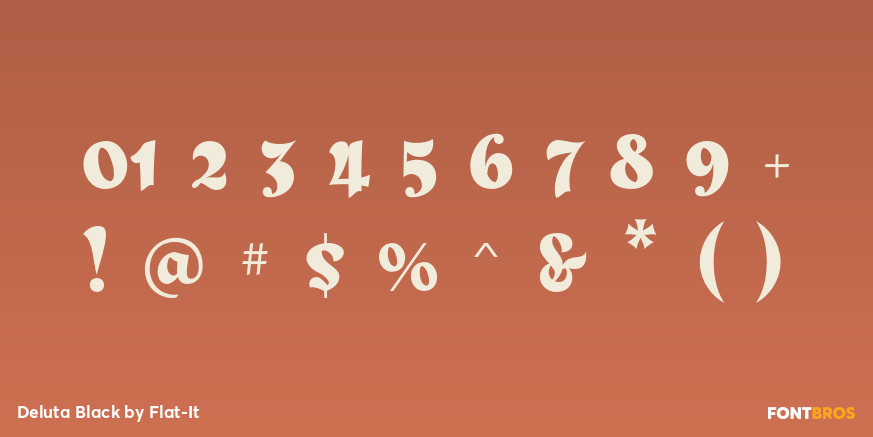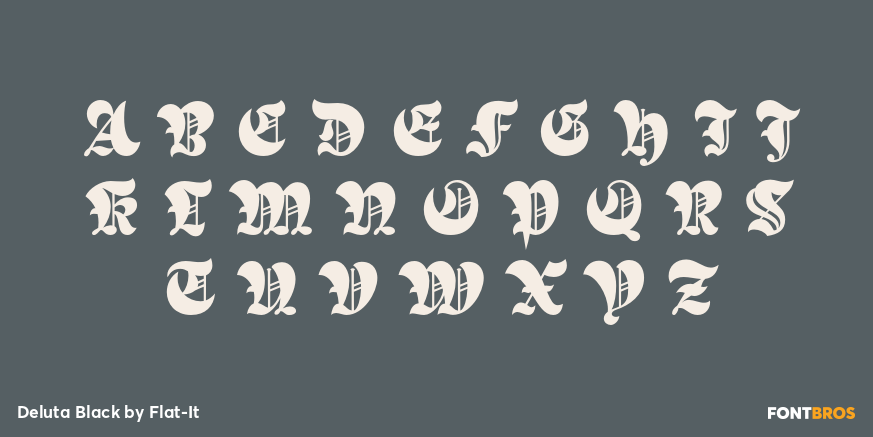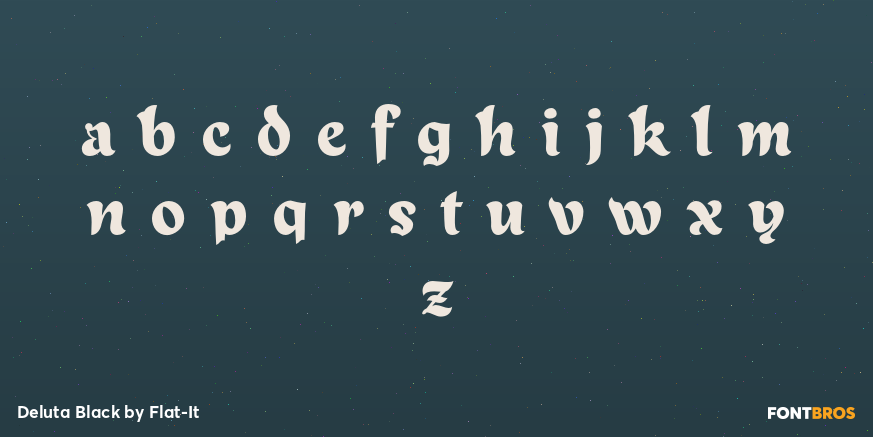
Deluta Black
Font Family by Dharma Type
You won’t find another blackletter font quite as lovely, unique, and playful as this one.
It’s a fresh twist on tradition—fun, quirky, and full of charm.